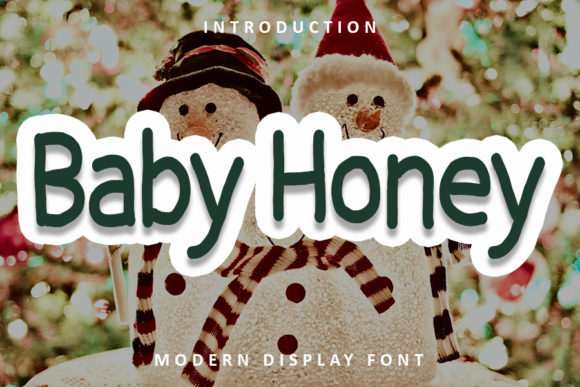
Baby Honey Font
When it comes to choosing the right font for your projects, Baby Honey stands out as a simple yet powerful option. This display font is designed with clean lines and a friendly aesthetic that makes it versatile for a wide range of applications. Whether you're working on a personal project, a professional design, or a creative piece, Baby Honey can add a touch of elegance and readability without overwhelming the viewer.
A Simple and Neat Display Font
Baby Honey is more than just another font—it's a tool that can elevate your visual communication. Its simplicity allows it to work well in both digital and print formats. The font’s design is minimalistic, making it easy to read while still maintaining a stylish appeal. This balance between functionality and aesthetics is what makes Baby Honey so appealing to designers and creators alike.
Why Choose Baby Honey?
The main appeal of Baby Honey lies in its versatility. It doesn’t require complex styling or special formatting to look great. This makes it ideal for beginners who are just starting to explore typography. The font is also highly readable, which is essential when creating content that needs to be understood quickly and clearly.
One of the key strengths of Baby Honey is its ability to adapt to different contexts. Whether you're designing a logo, crafting a social media post, or preparing educational materials, this font can fit seamlessly into your workflow. Its clean appearance ensures that it remains professional while still feeling approachable and modern.
Where Can You Use Baby Honey?
Baby Honey is suitable for a variety of uses. For example, it can be used in branding materials to create a cohesive and memorable identity. It works well for headlines, taglines, and even body text in certain scenarios. In an educational setting, Baby Honey can be used to create visually engaging presentations or handouts that are easy to follow.
In the world of digital content creation, Baby Honey is a great choice for bloggers, marketers, and small business owners. It adds a touch of personality to websites, social media posts, and email newsletters without being too distracting. Its clean design also makes it ideal for use in infographics, posters, and other visual content.
For freelancers and hobbyists, Baby Honey offers a reliable and consistent look that can be applied across multiple projects. Whether you're designing a portfolio, creating a printable calendar, or building a custom template, this font provides a solid foundation for your creative work.
Practical Examples of Baby Honey in Action
- Branding: Use Baby Honey for company logos, website headers, and marketing collateral to create a strong brand identity.
- Education: Incorporate Baby Honey into lesson plans, flashcards, or study guides to make learning more engaging.
- Digital Content: Apply Baby Honey to headlines, captions, and call-to-action buttons to enhance user experience.
- Print Materials: Utilize Baby Honey for brochures, invitations, and signage where clarity and style are equally important.
Important Considerations Before Using Baby Honey
Additionally, consider the context in which you’ll be using the font. While Baby Honey is excellent for most applications, it may not be the best choice for long-form text or technical documents. In such cases, a more traditional serif or sans-serif font might be more appropriate.
As you become more familiar with Baby Honey, experiment with different text sizes, spacing, and color combinations to find the best way to integrate it into your designs. Don’t be afraid to mix it with other fonts to create a balanced and visually appealing layout.
Remember, the goal is to enhance your message, not distract from it. Baby Honey is a great asset to any designer’s toolkit, but it should always be used thoughtfully and purposefully.